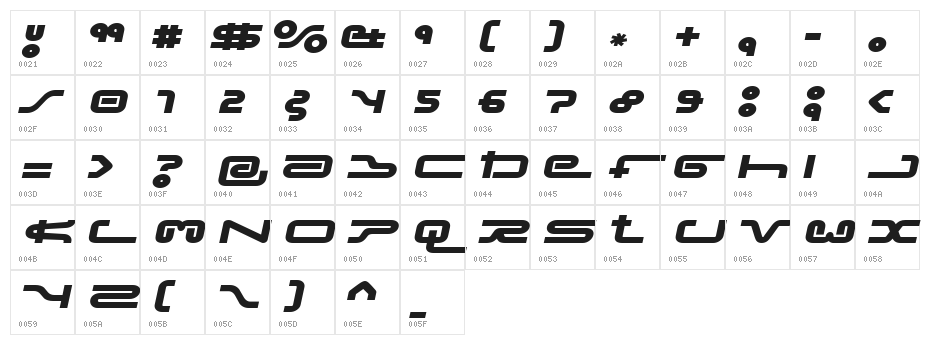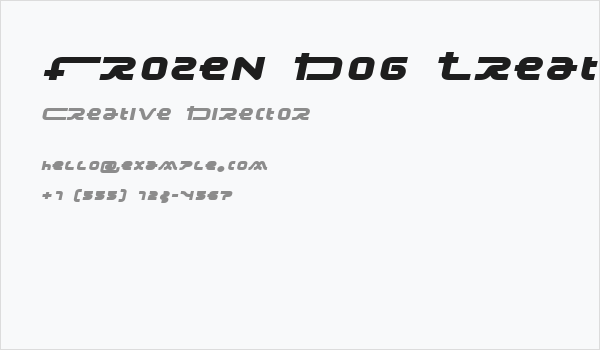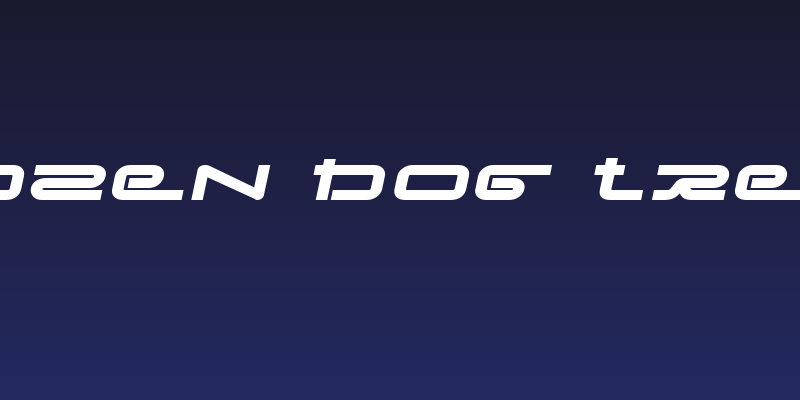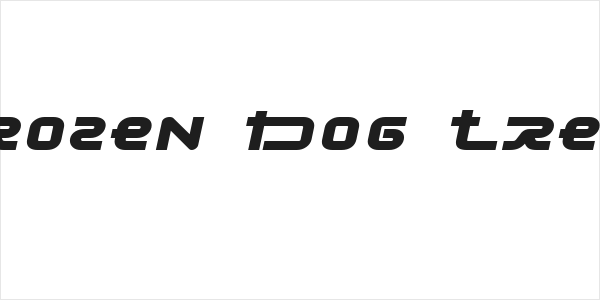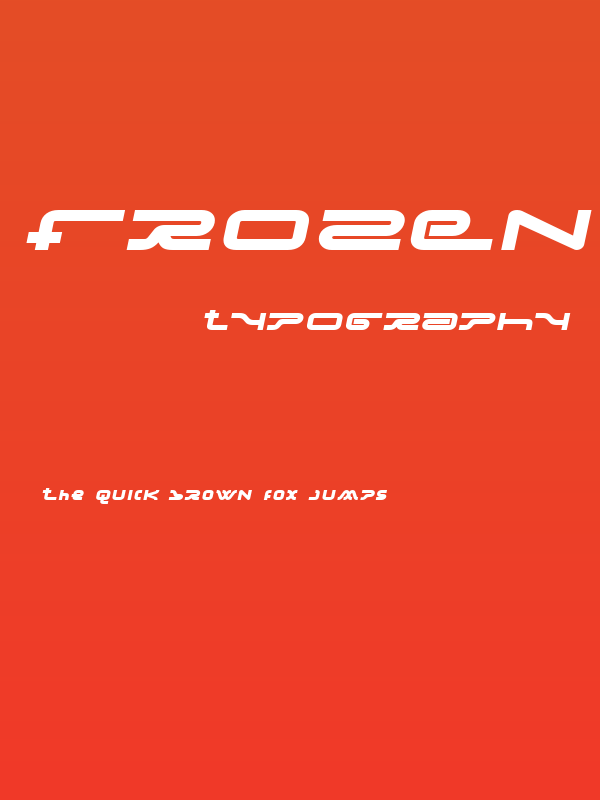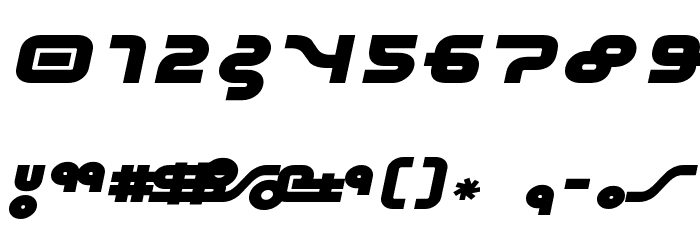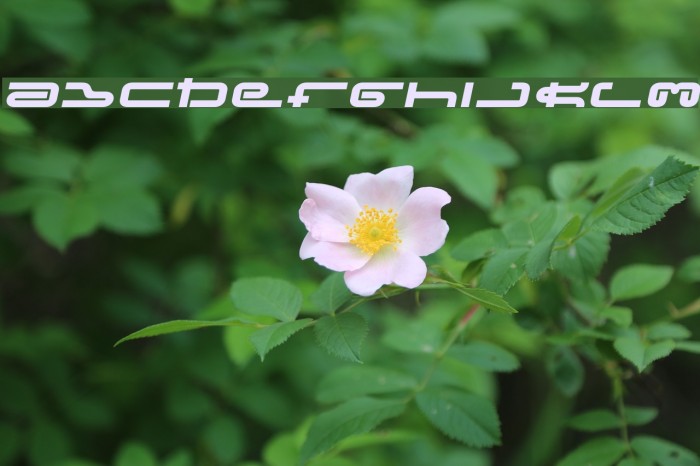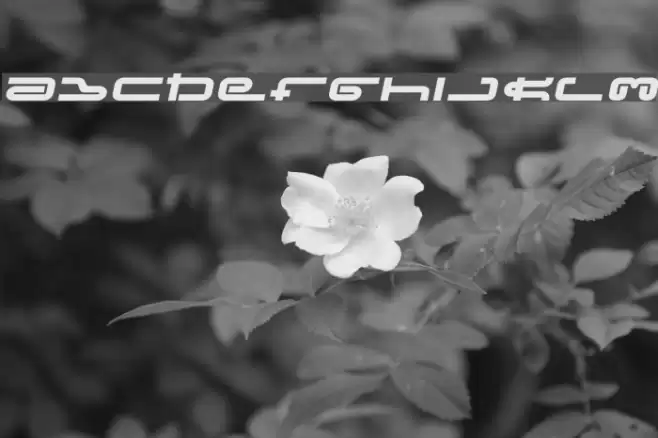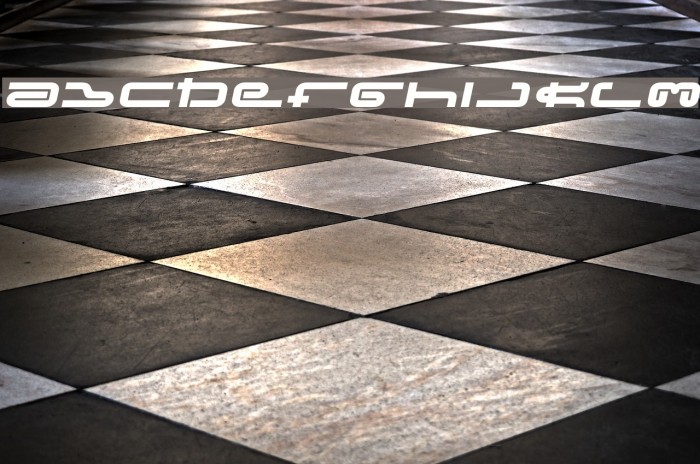
Frozen Dog Treats Font
Frozen Dog Treats Description
This font features a bold, futuristic design with a strong emphasis on geometric shapes and sharp angles. The characters are uniquely stylized, with a consistent slant that gives a sense of motion and speed. The uppercase and lowercase letters maintain a uniform height, creating a cohesive look. Numbers and special characters are designed to match the overall aesthetic, ensuring versatility across different types of content. The font's distinct appearance makes it ideal for projects that require a modern and dynamic feel.
| Proposed Projects | Ideal for technology branding, sci-fi posters, video game titles, and modern advertising campaigns. |